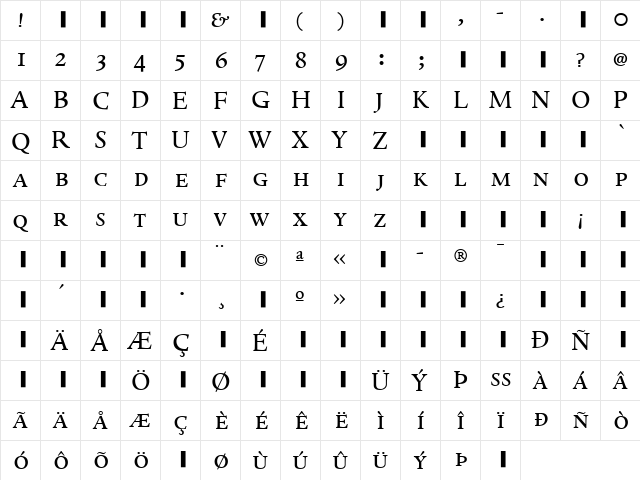
Whitenights LT Std RegularSC Regular Font Preview
Whitenights LT Std RegularSC Regular
Whitenights LT Std RegularSC Regular Font Details
| Foundry | Linotype Library GmbH |
| Designer | Lars Berquist |
Design Context for Whitenights LT Std RegularSC Typeface
Whitenights LT Std RegularSC takes a measured approach to typography — its balanced proportions and neutral character make it a reliable workhorse for both digital and print work. Its slender proportions lend an understated elegance to any composition.